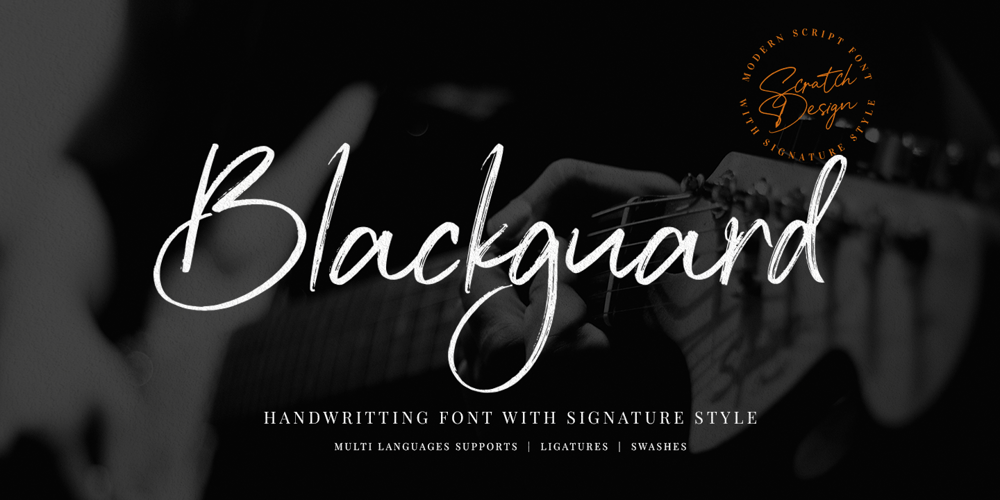
Blackguard Font Family was designed by Gitayogi Irhandi and published by Scratch Design. Blackguard contains 1 styles and family package options. Introducing..Blackguard modern handwriting with signature style. This is a beautiful handwriting font so natural and casual charm with the brush textured make this font look authentic but still readable and incredibly versatile. Blackguard will look outstanding in any occasion design concept, whether it’s being used on colorful backgrounds or as a stand as a headline in the minimalist background! Blackguard has multi-language support, swashes, and ligature dan you can apply in OpenType mode at adobe photoshop or adobe illustrator. Please enjoy the Blackguard font and makes some stunning designs.